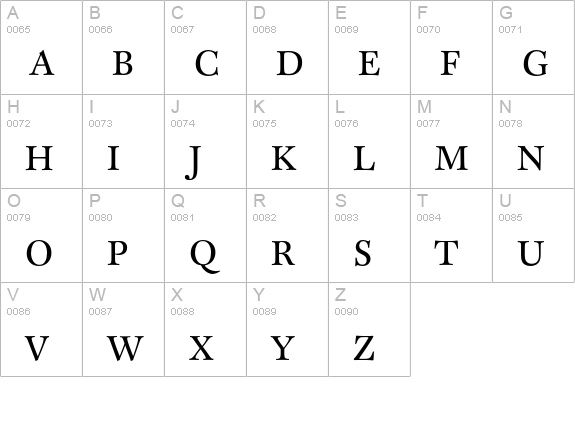
CliffordEighteen-Roman Font Details
CliffordEighteen-Roman is a classic and elegant font that exudes sophistication and timelessness. With its clean lines and balanced proportions, this typeface is perfect for a wide range of design projects. Whether you're creating invitations, branding materials, or editorial layouts, CliffordEighteen-Roman will add a touch of refinement to your work. What makes CliffordEighteen-Roman even more appealing is that it is available for free download at FontsMarket.com. This means you can easily access this high-quality font without any cost, making it a valuable addition to your font library. Don't miss out on the opportunity to enhance your designs with the beauty and versatility of CliffordEighteen-Roman. Download it now and elevate your creative projects to the next level.